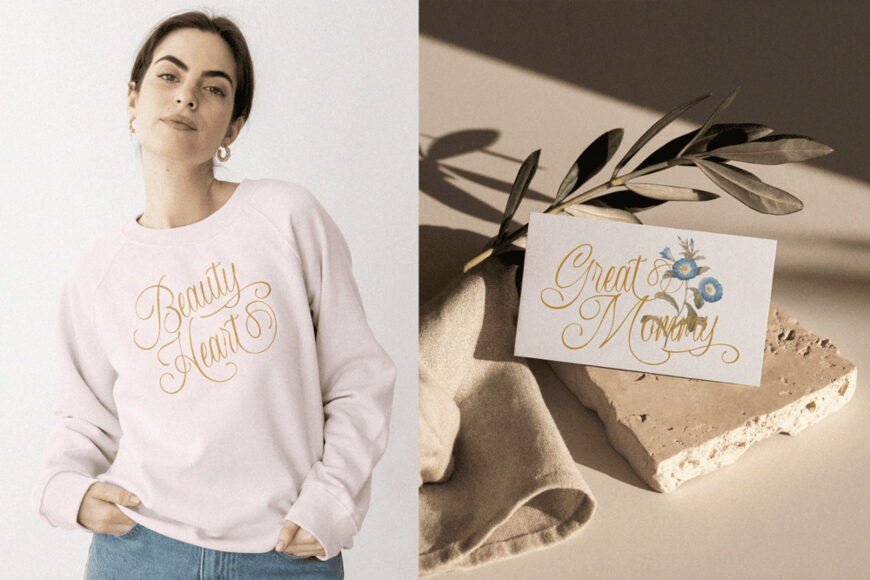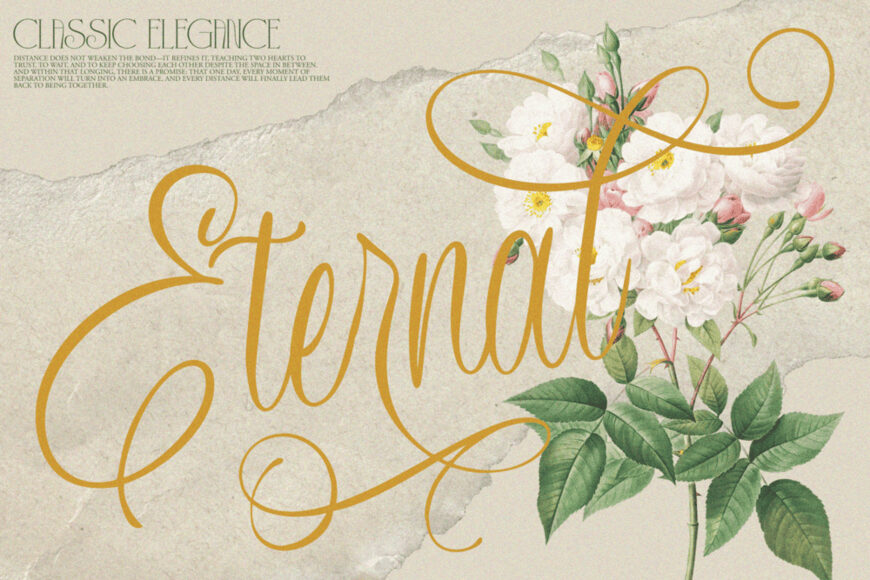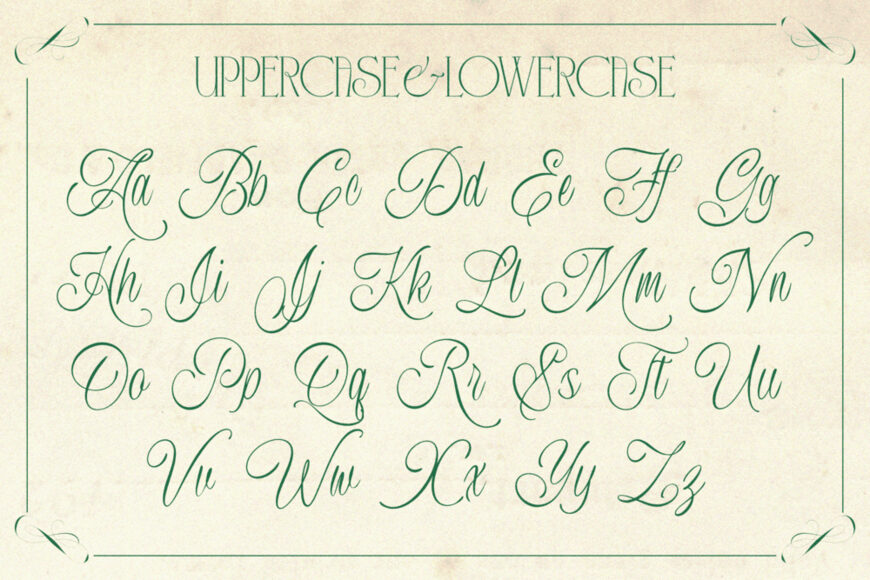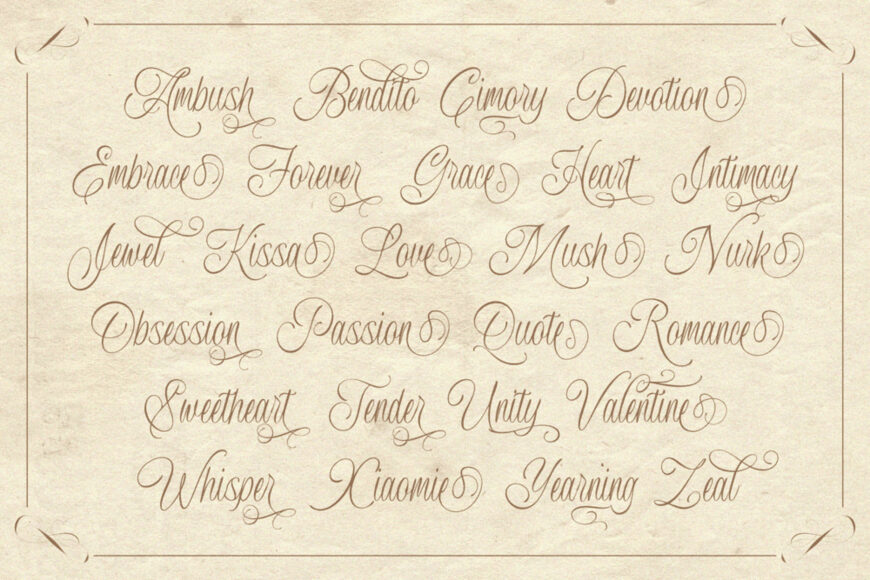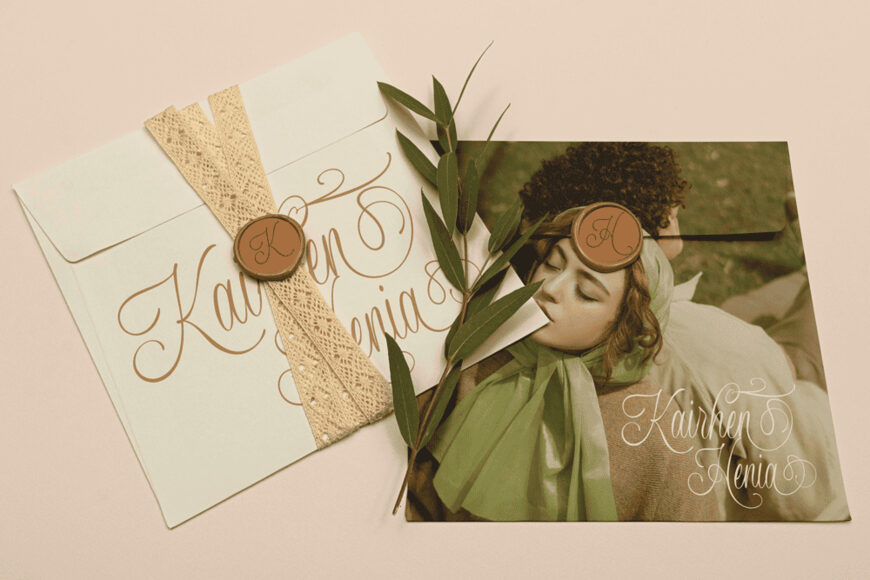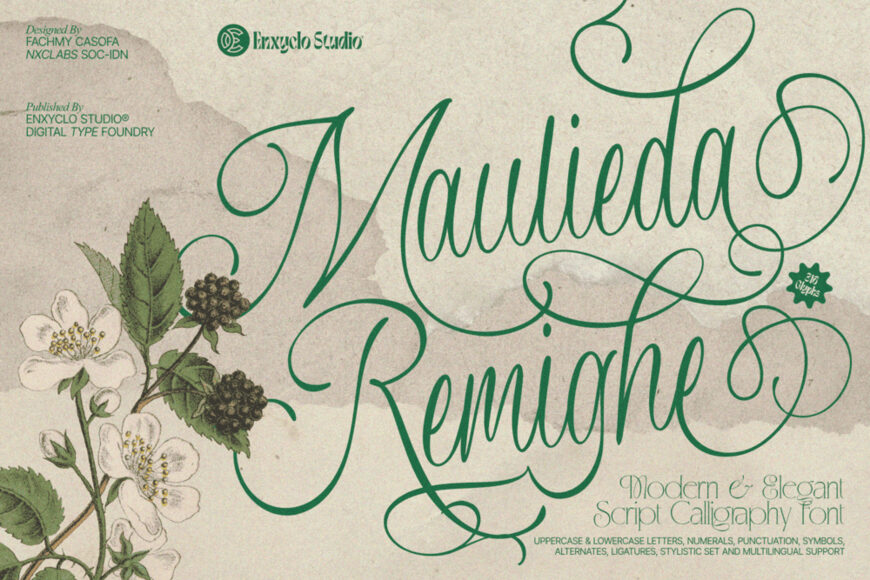
Maulieda Remighe Font
Maulieda Remighe is a timeless modern classic script font that celebrates the beauty of elegance, romance, and luxurious craftsmanship. Featuring graceful curves, refined calligraphic strokes, and an exquisite collection of flourishes and swashes, this typeface is designed to create typography that feels sophisticated, artistic, and unforgettable.
Every letter flows naturally into the next, delivering a rich visual harmony that embodies premium design and timeless style. Inspired by the world of luxury fashion, beauty, cosmetics, skincare, and boutique branding, Maulieda Remighe blends classic calligraphy with a modern aesthetic to produce a script font that is both lavish and versatile.